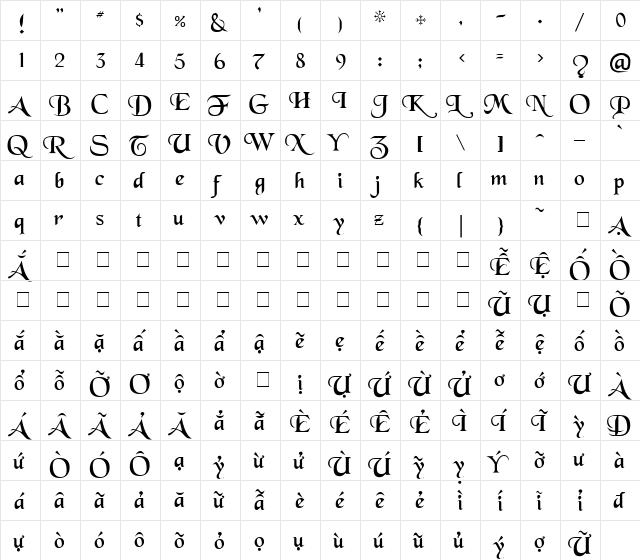
VI Cho Regular
Design Context for VI Ch�o Typeface
VI Ch�o is a composed and adaptable typeface that performs quietly and consistently across a wide range of design contexts.